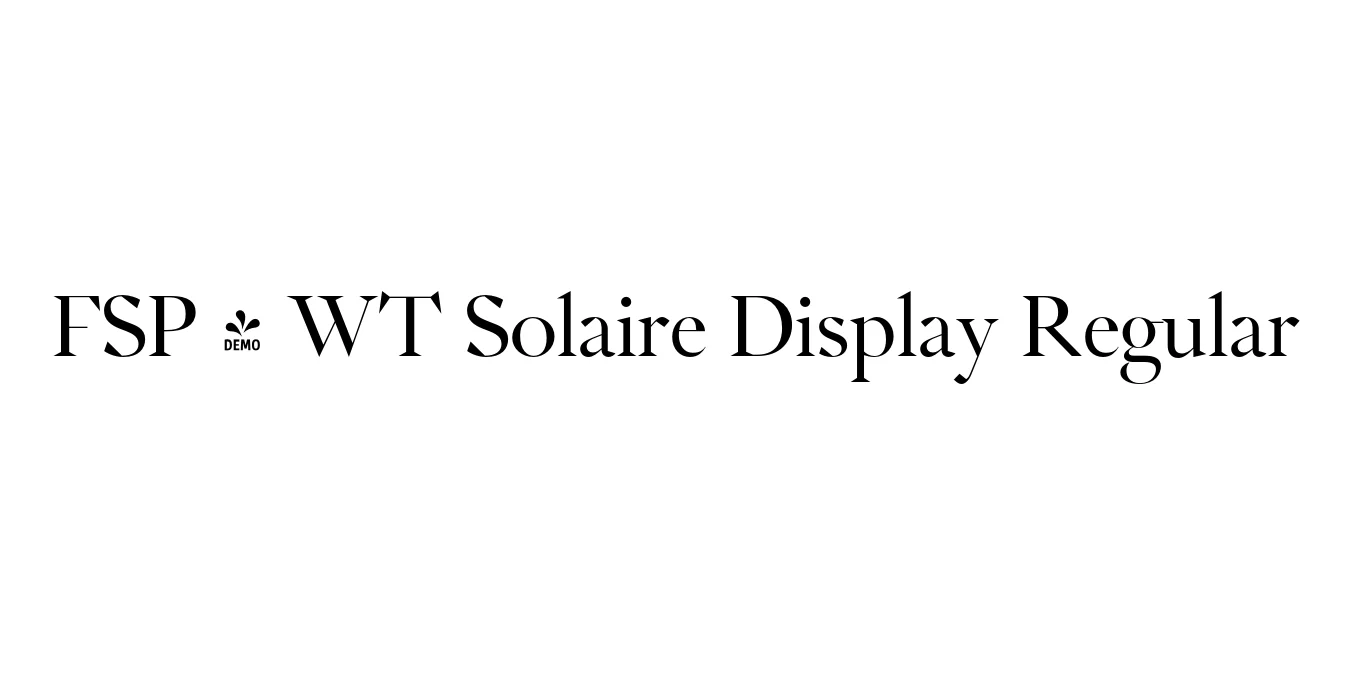
FSP - WT Solaire Display Regular
Designed by Jacob Wise (WiseType)
| Category | Display Serif |
| Designer | Jacob Wise (WiseType) |
WT Solaire Display Regular is a sophisticated display typeface inspired by the fluid lines of the Art Nouveau movement and the decorative elegance of late 19th-century typography. Characterized by its dramatic high contrast, sharp serifs, and sweeping curves, this font bridges the gap between historical romanticism and modern refinement. It is part of the larger Solaire family designed to provide designers with a versatile tool for high-impact visual communication.
Published by WiseType and distributed via Fontspring, this specific weight is optimized for large-scale display use where its intricate details can truly shine. Its unique personality makes it a favorite for contemporary editorial layouts, high-end fashion branding, and premium packaging designs. The typeface strikes a perfect balance between organic movement and architectural precision, ensuring a timeless yet trendy aesthetic for any creative project.
FSP - WT Solaire Display Regular Best Uses
Creates a high-end, sophisticated look for logos and premium brand identities.
Perfect for magazine mastheads, large headlines, and stylish pull quotes.
Adds an elegant and expensive feel to cosmetics, wine, or boutique product labels.
Ideal for wedding invitations, formal gala announcements, and artistic posters.